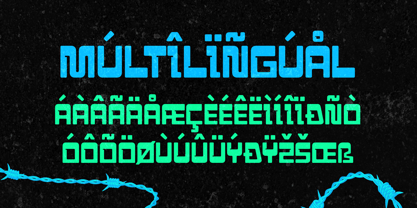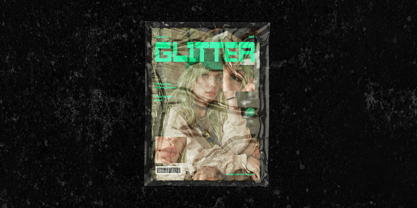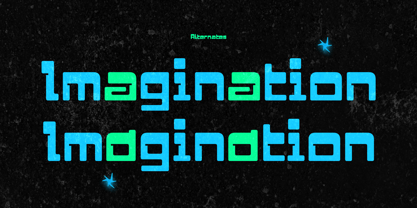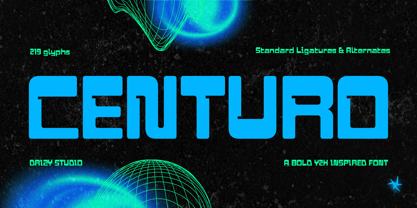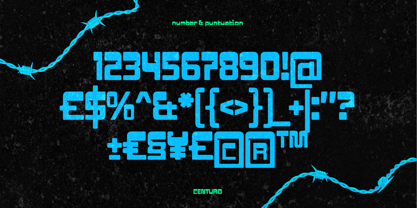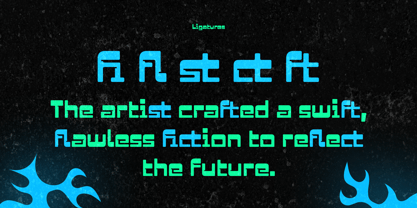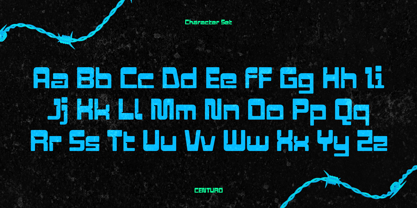
Centuro
The Centuro Font Family was designed by Panca Ahmadi Hasan and published by Drizy Font. Centuro contains 1 styles. More about this family
Centuro is a bold and futuristic Y2K-style font that captures the energetic vibe of the early 2000s. Featuring chunky letterforms, smooth curves, and a tech-inspired edge, it is ideal for designs that require a nostalgic yet modern punch. Use Centuro for logos, posters, apparel, or digital projects that aim to stand out with a confident retro-futuristic feel—bold, playful, and unmistakably Y2K. Key features of Centuro include uppercase and lowercase letters, punctuation and numbers, multilingual support, ligatures, and stylistic alternates.